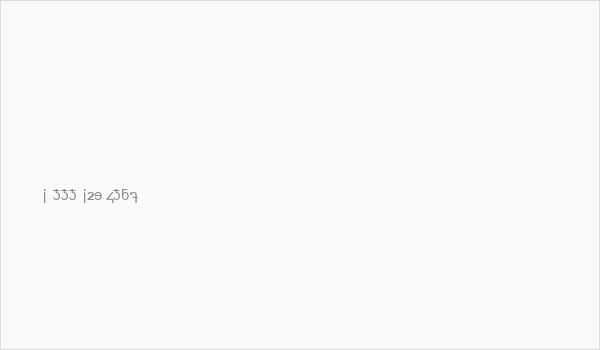
minuscule digits Font
minuscule digits Description
This font features a unique and playful design, characterized by its unconventional representation of numerals. Each digit is crafted with a distinct style that incorporates elements of geometric shapes and abstract forms. The font maintains a consistent stroke width throughout, giving it a uniform appearance. The characters are designed with a modern aesthetic, making them suitable for creative and artistic projects. The overall look is both intriguing and visually engaging, offering a fresh take on traditional numeral design.
| Use Case | Logos, Artistic projects, Digital media |
| Proposed Projects | Ideal for creative projects, modern art pieces, digital media, and unique branding materials. |